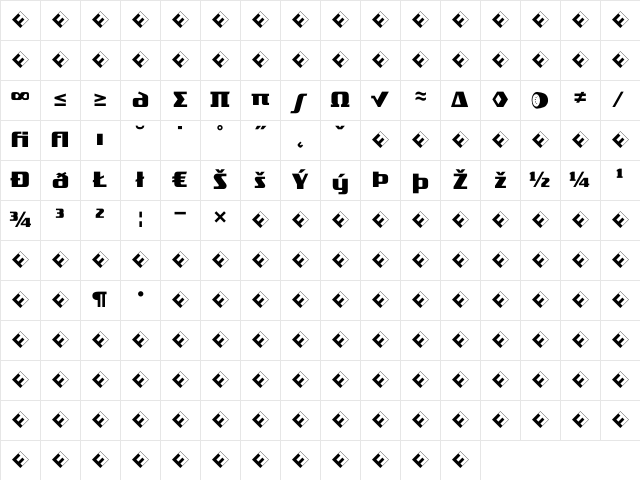
TradeMarker BoldExp
Design Context for TradeMarker
TradeMarker is a composed and adaptable typeface that performs quietly and consistently across a wide range of design contexts. Its bold stroke weight gives it real presence on the page.
Pro Tip: Use TradeMarker in both headline and body roles to test its range before committing to a single application.